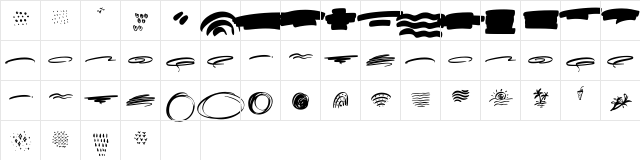
Summer Coast Extra Regular
Design Context for Summer Coast Extra Typeface
Summer Coast Extra is a composed and adaptable typeface that performs quietly and consistently across a wide range of design contexts.